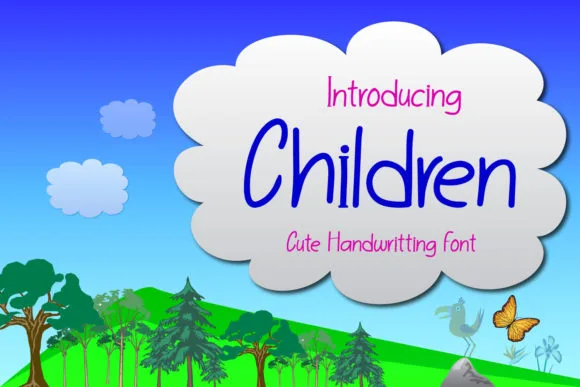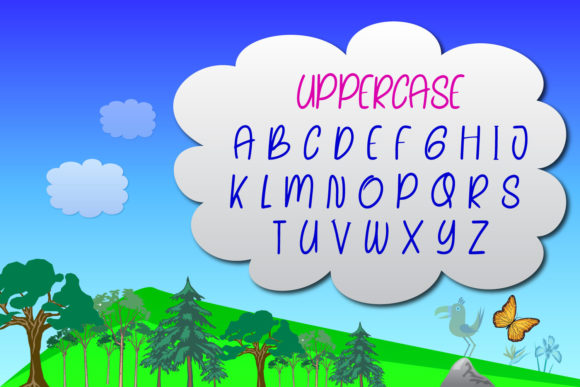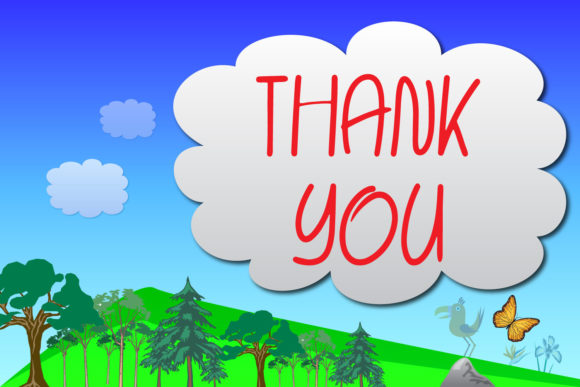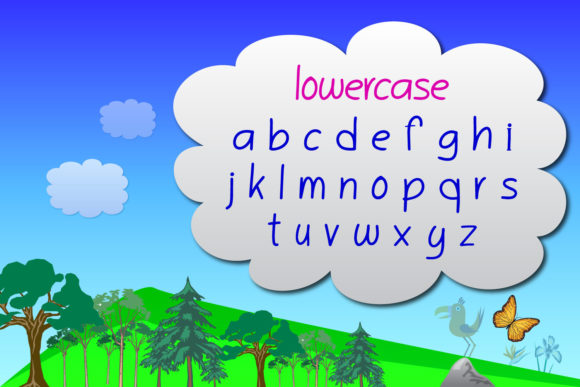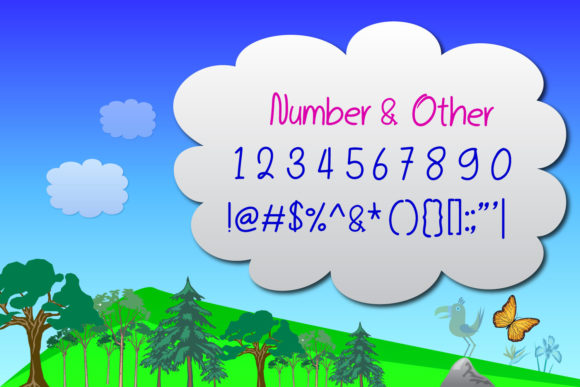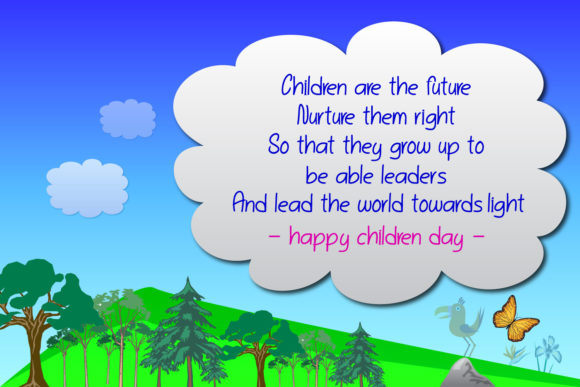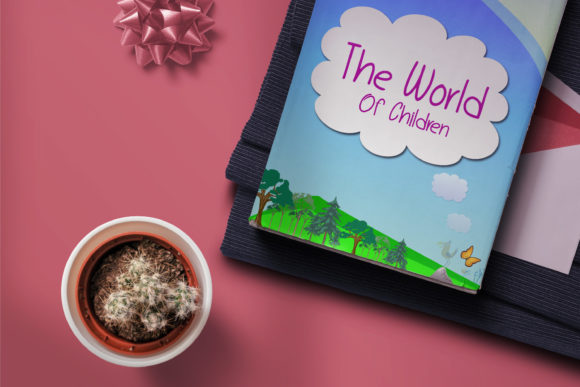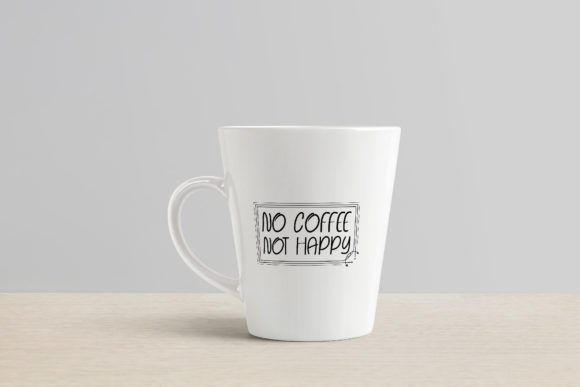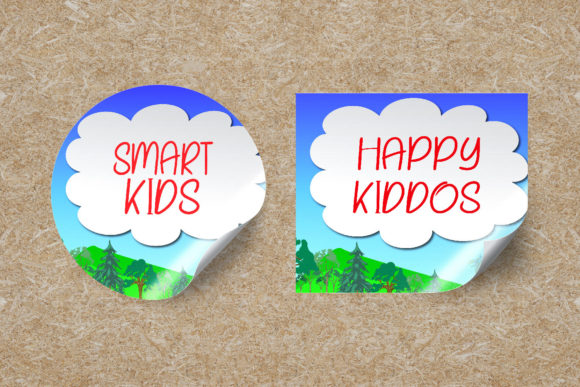
Children Font
About Children Font
Children is a cute and fun handwriting font. It embodies playfulness and authenticity and is the perfect choice for any children activity or school project. Add this quirky lettered font to your designs and notice how it makes them come alive.